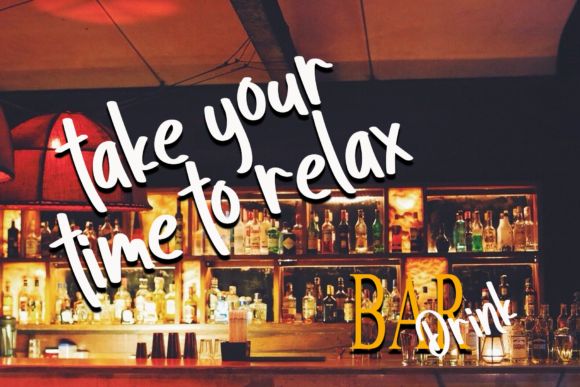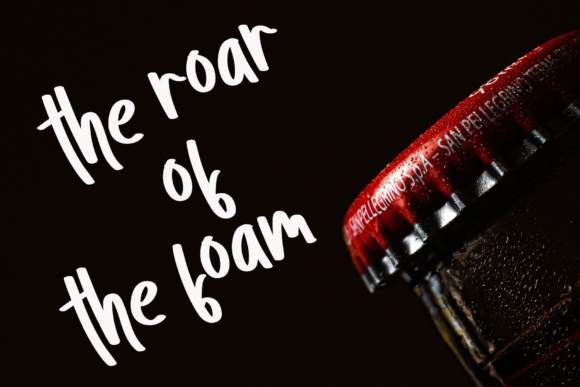
Star Work Font
db-ku.com - Script & Handwritten -- Star Work is a free-flowing handwritten font created for packaging products, invitation cards, flyers, mockups, event posters, and anything else that requires high-quality vibes. It has a beautiful and balanced character, that fits well with the large design pool.